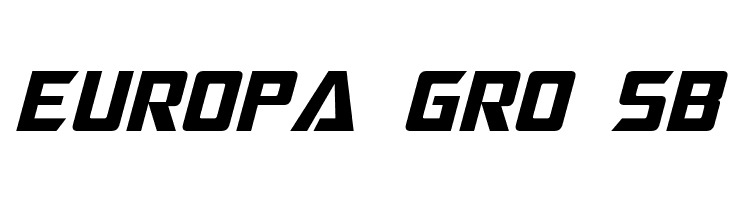
A bold, italic, futuristic font with sharp, angular lines and a dynamic style.
An ornate, medieval-inspired font with dramatic flourishes and bold strokes.
An ornate, medieval-style font with intricate, flowing strokes.
A bold, pixelated font with a retro video game aesthetic.
A pixelated, monospaced font with a retro, digital aesthetic.
A bold, dynamic brush script with expressive, fluid strokes and a handmade feel.
A dot matrix font with a digital, pixelated style.
A playful, bone-themed decorative font with a quirky skeletal design.
A bold, playful font with chunky, exaggerated letterforms.
A modern serif font with elongated, thin strokes and subtle serifs.
A bold, italicized font with a 3D outline and shadow effect.
A bold, playful, and cartoonish font with a three-dimensional, hand-drawn style.
A bold, cursive script font with dynamic strokes and a handwritten feel.
A bold, condensed, and italic font with a futuristic, angular design.
A bold, geometric font with a hollow interior and futuristic style.
A bold, hollow, geometric font with a futuristic and condensed style.
A bold, futuristic, hollow, and italicized font with a condensed style.
A bold, futuristic, hollow italic font with angular, geometric characters.
A bold, decorative font with a unique, ancient script-inspired style.
A bold, geometric font with a modern twist and stylized numerals.
A geometric, maze-like font with a modern, digital aesthetic.
A bold, melting-effect font with a dynamic and edgy style.
A bold, graffiti-inspired font with a hand-painted, textured style.
A decorative font with intricate, ornate details reminiscent of Arabic calligraphy.
An ornate and decorative font with intricate swirls and embellishments.